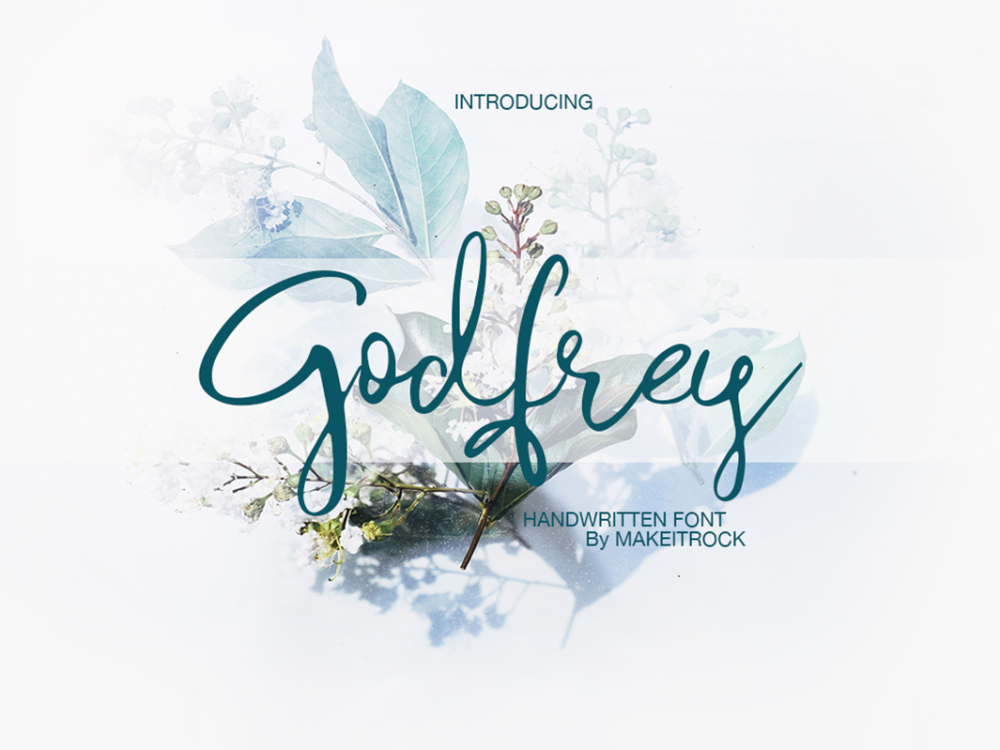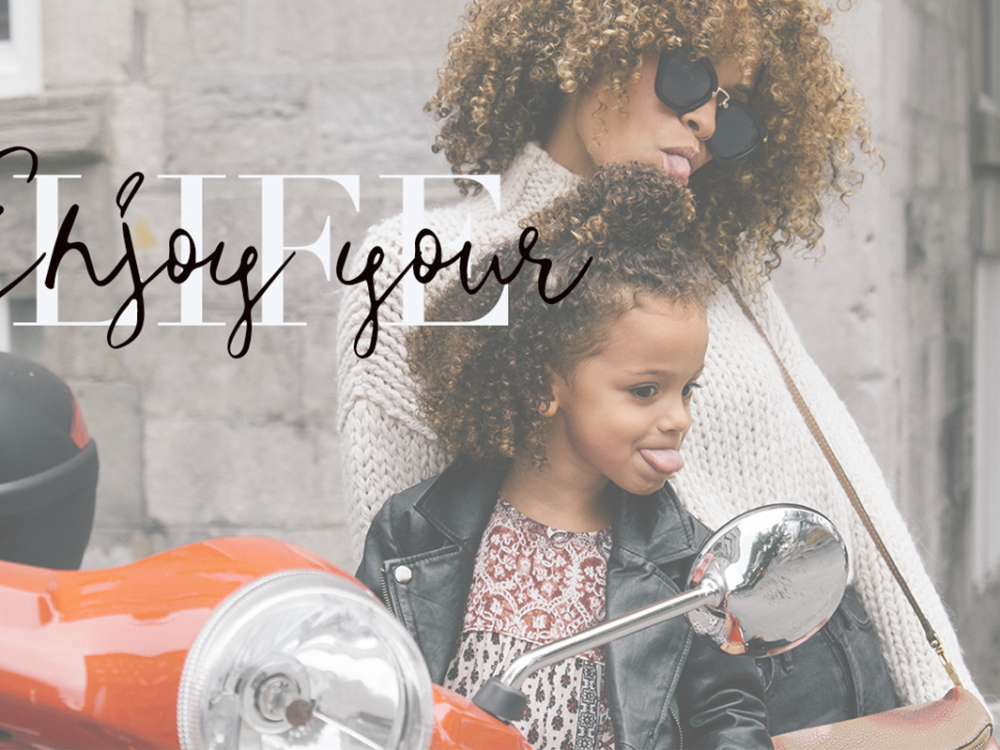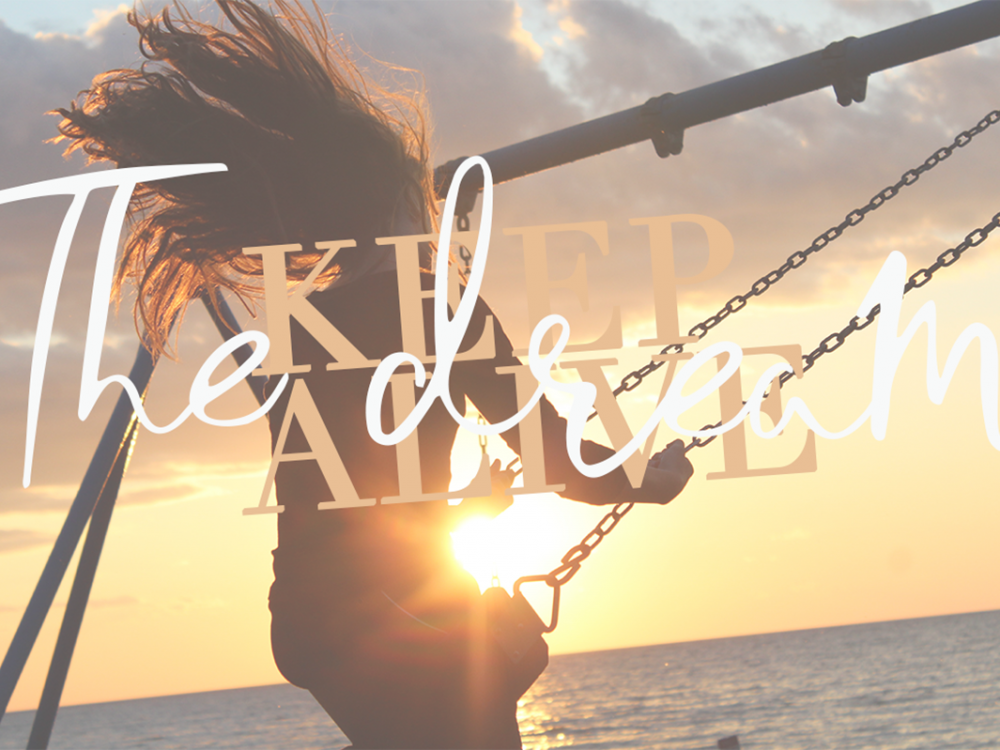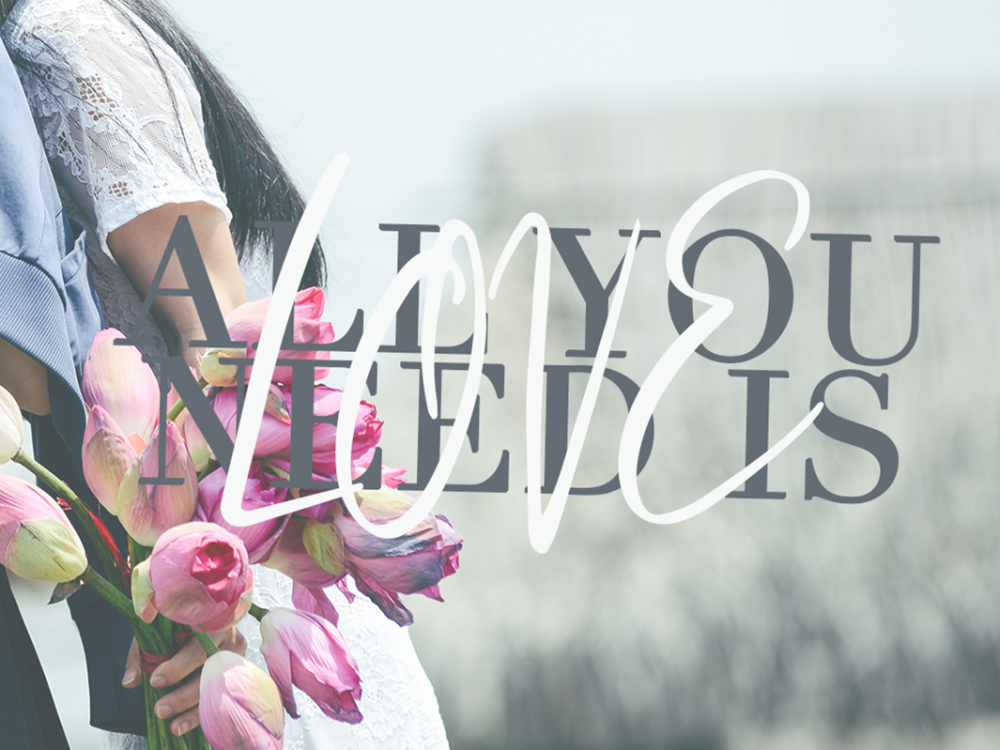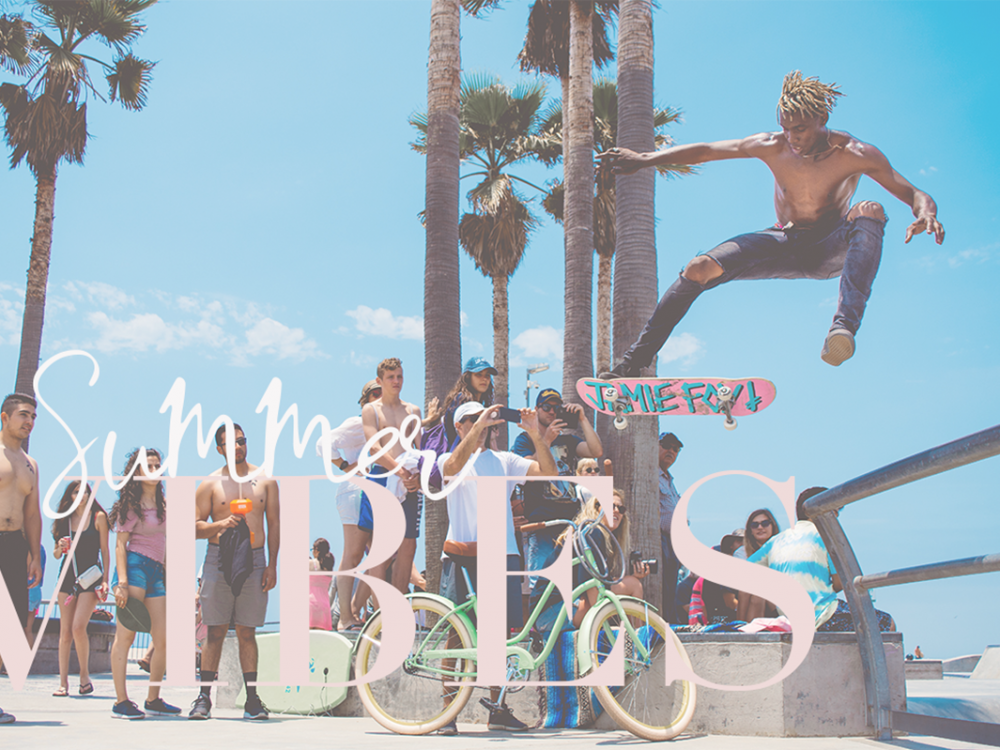
Godfrey Free Font
Godfrey Free Font is a handwritten font that features an elegant calligraphic style and can help you make your text more realistic. This font will help you create unique design projects and improve your professional level. Use this font to create memorable posters, wedding invitations, cards, branding, flyers, and more. Improve the quality and increase the popularity of your design projects by using this font. If you like it don’t forget to check out the full version.